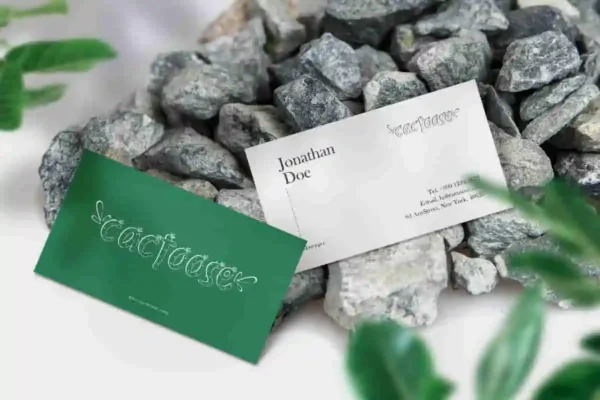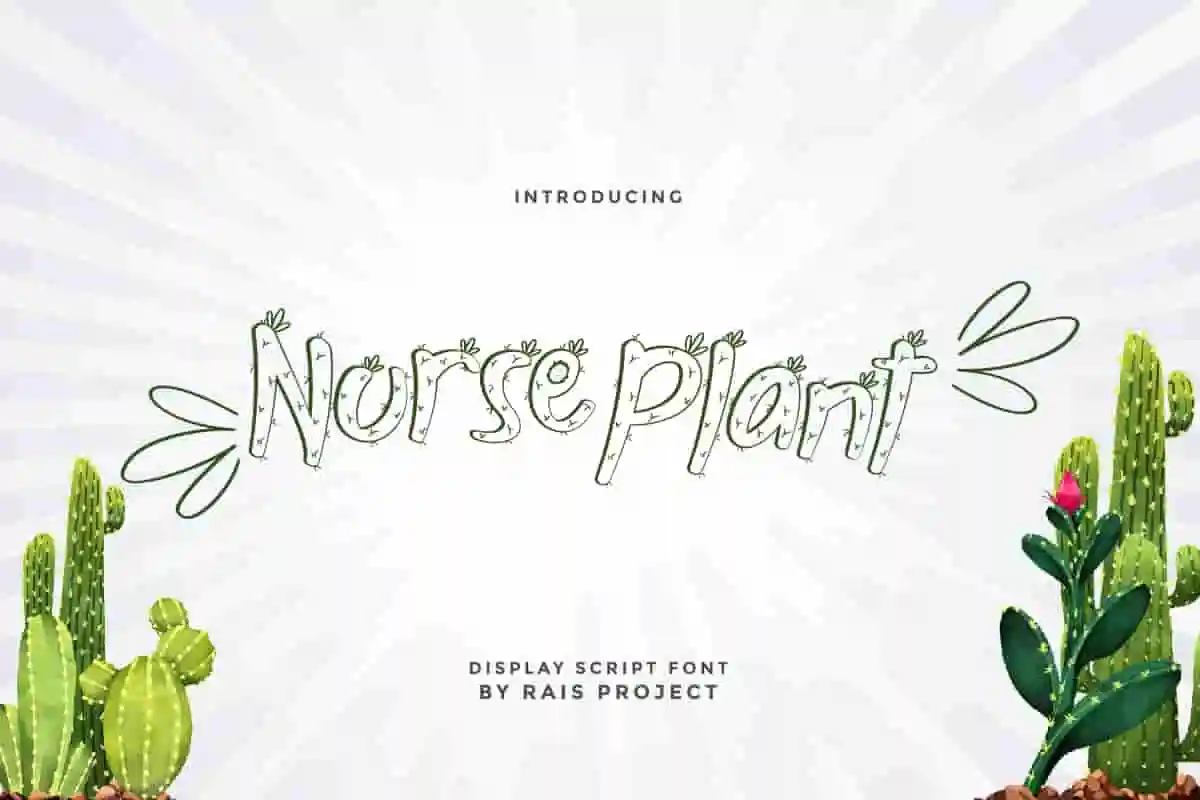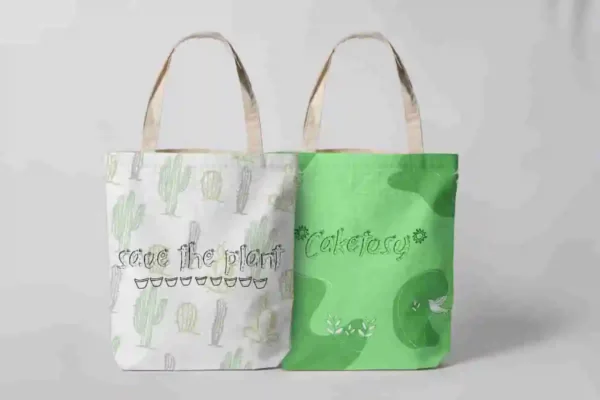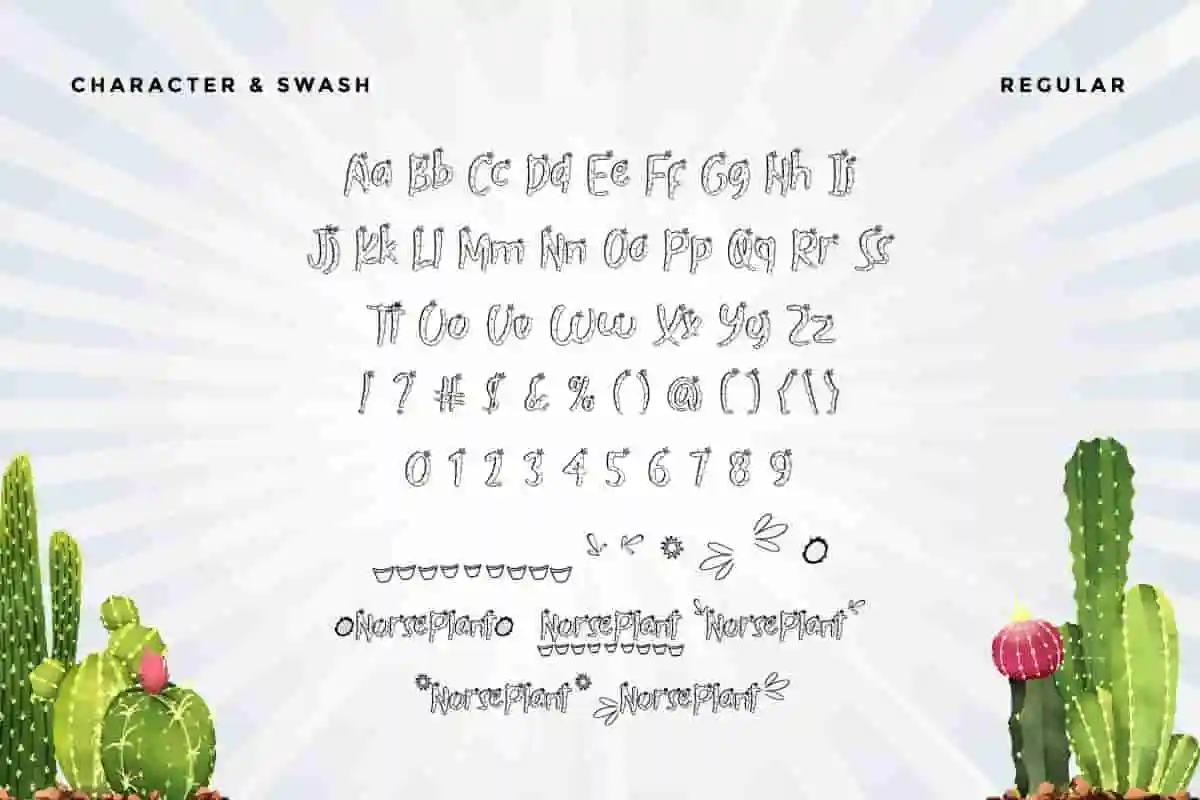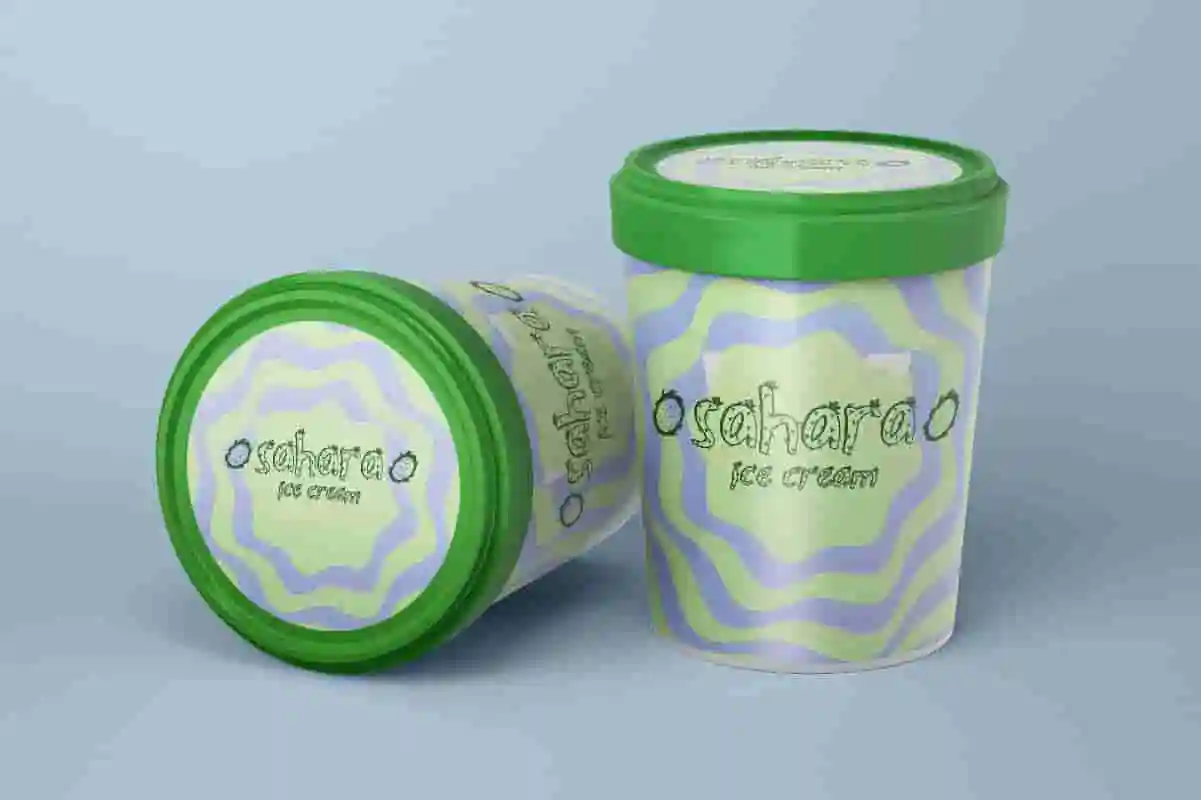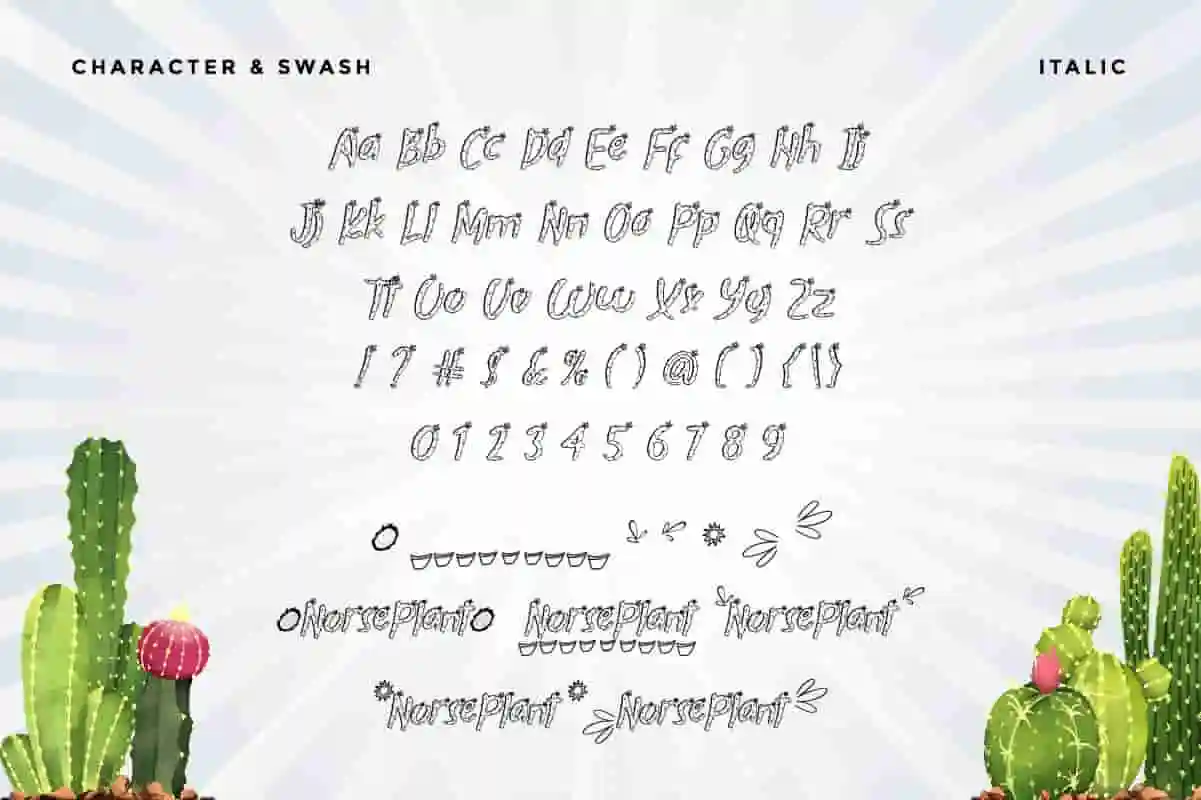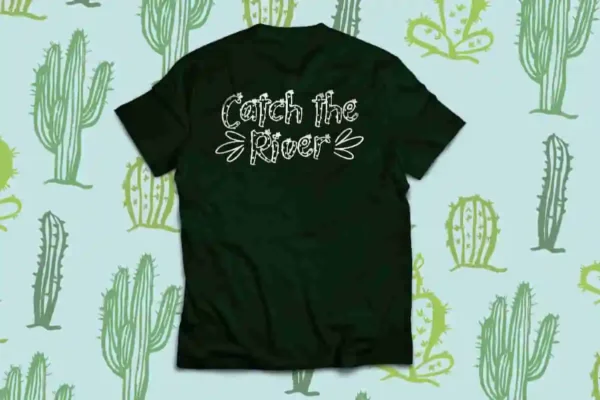
Nurse Plants Sans Serif Font
Nurse Plants Font is a display decorative sans serif font family, designed by Rais Project. The font has unique different styles that is inspired from the garden. It will be great for Games, Movie, Music, events, Sport etc
Nurse Plants Font remotely made by RaisProject team in Indonesia.The industries for this font Kids, Education Gardening, Florist, Travel, Apps, events, Games, Magazine, Music, Sports etc Nurse Plants Font includes full set of awesome uppercase and lowercase letters and numerals characters. In total, Nurse Plants has two different styles : Regular and Italic. You can mix it more than one style like we did on the previews On the package You will get: